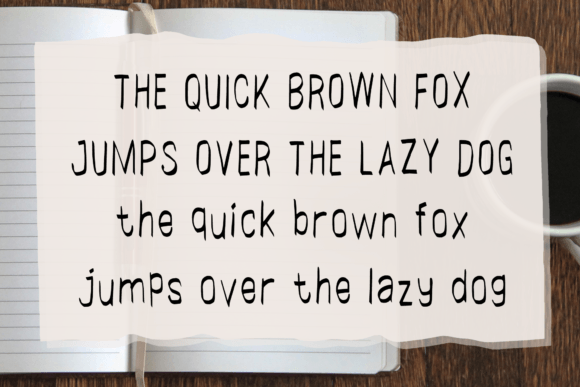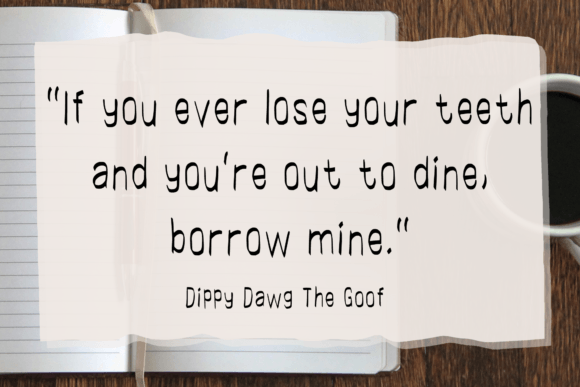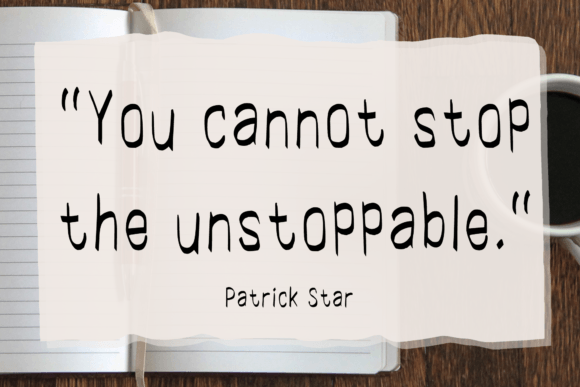
About Slim Planner Font
Slim Planner is a casual and neat handwritten font. Whether you’re using it for crafts, digital design, presentations, or making greeting cards, this font has the potential to become your favorite go-to font, no matter the occasion!